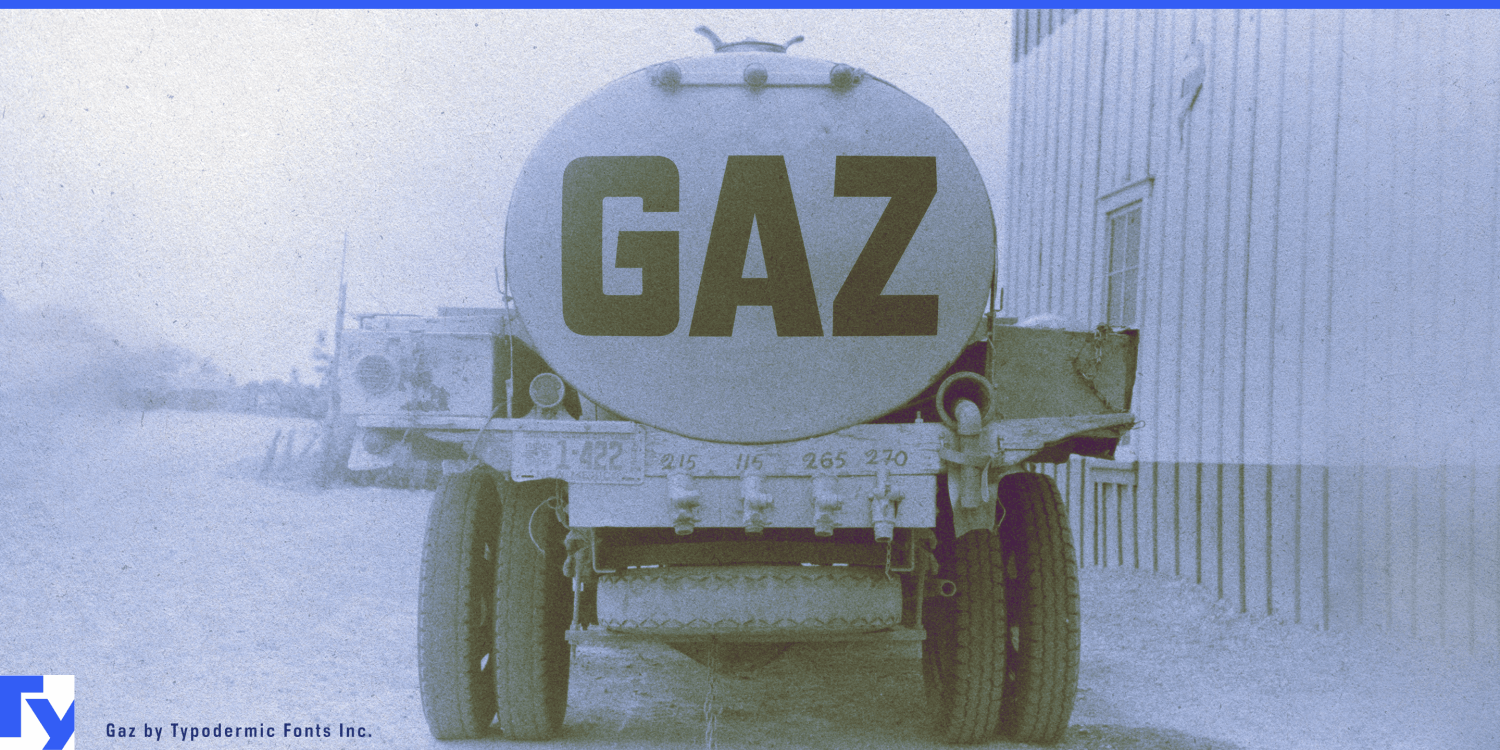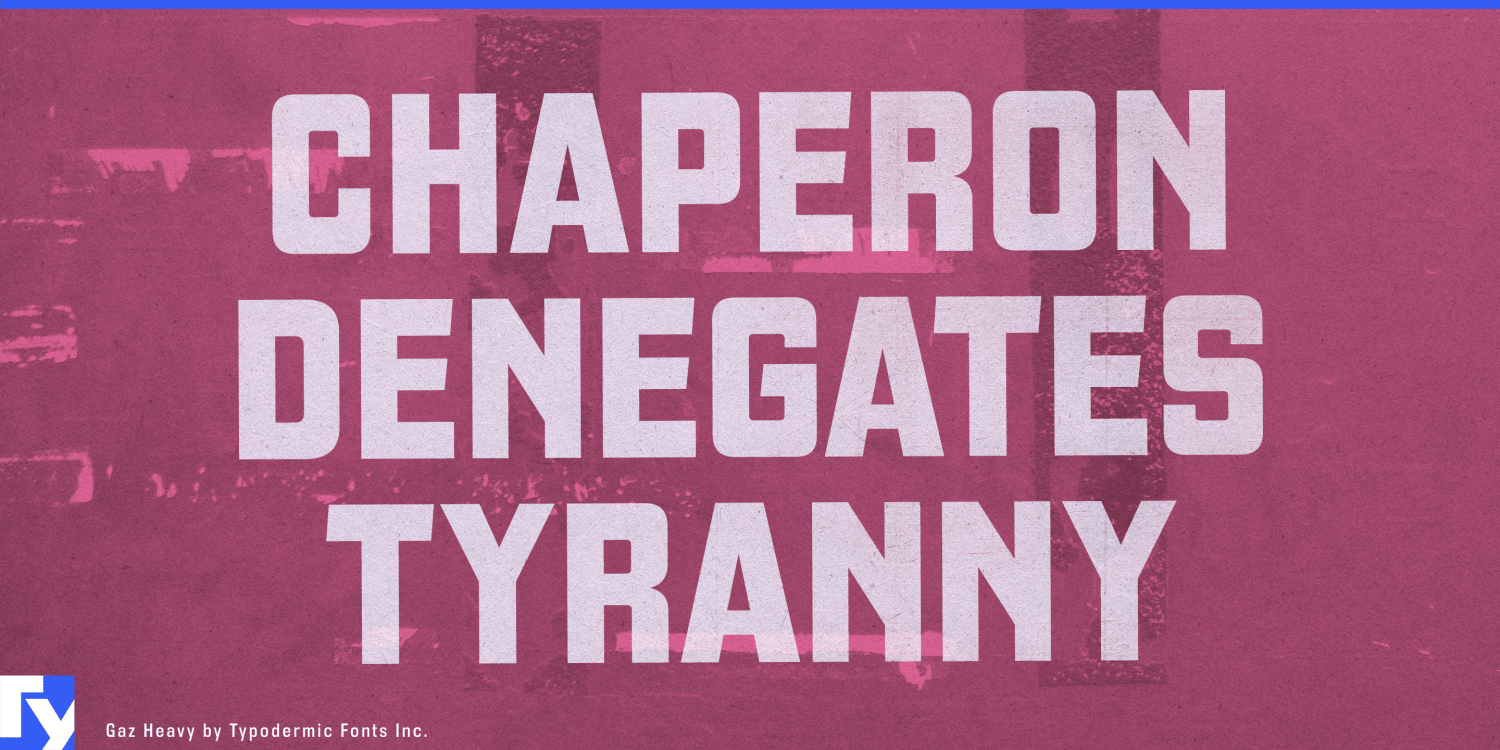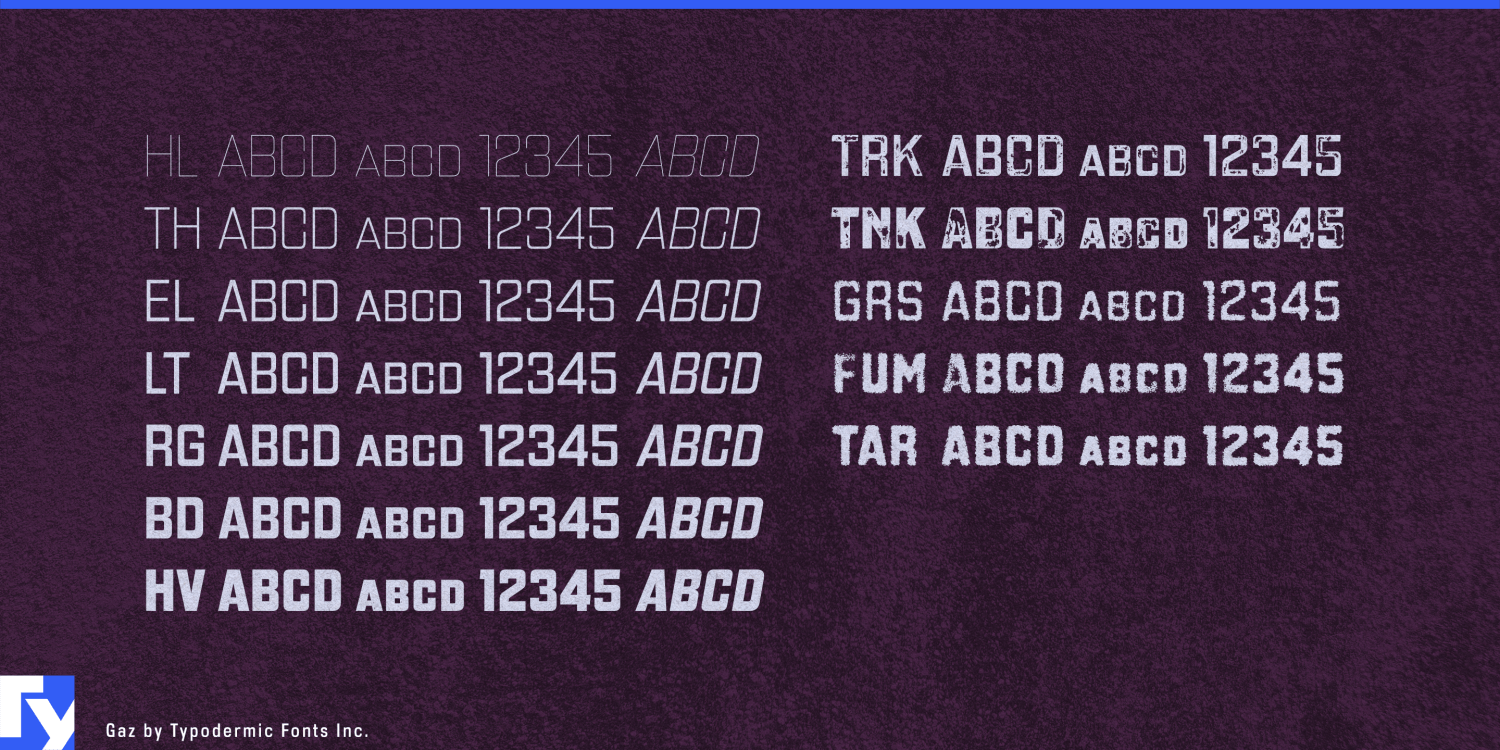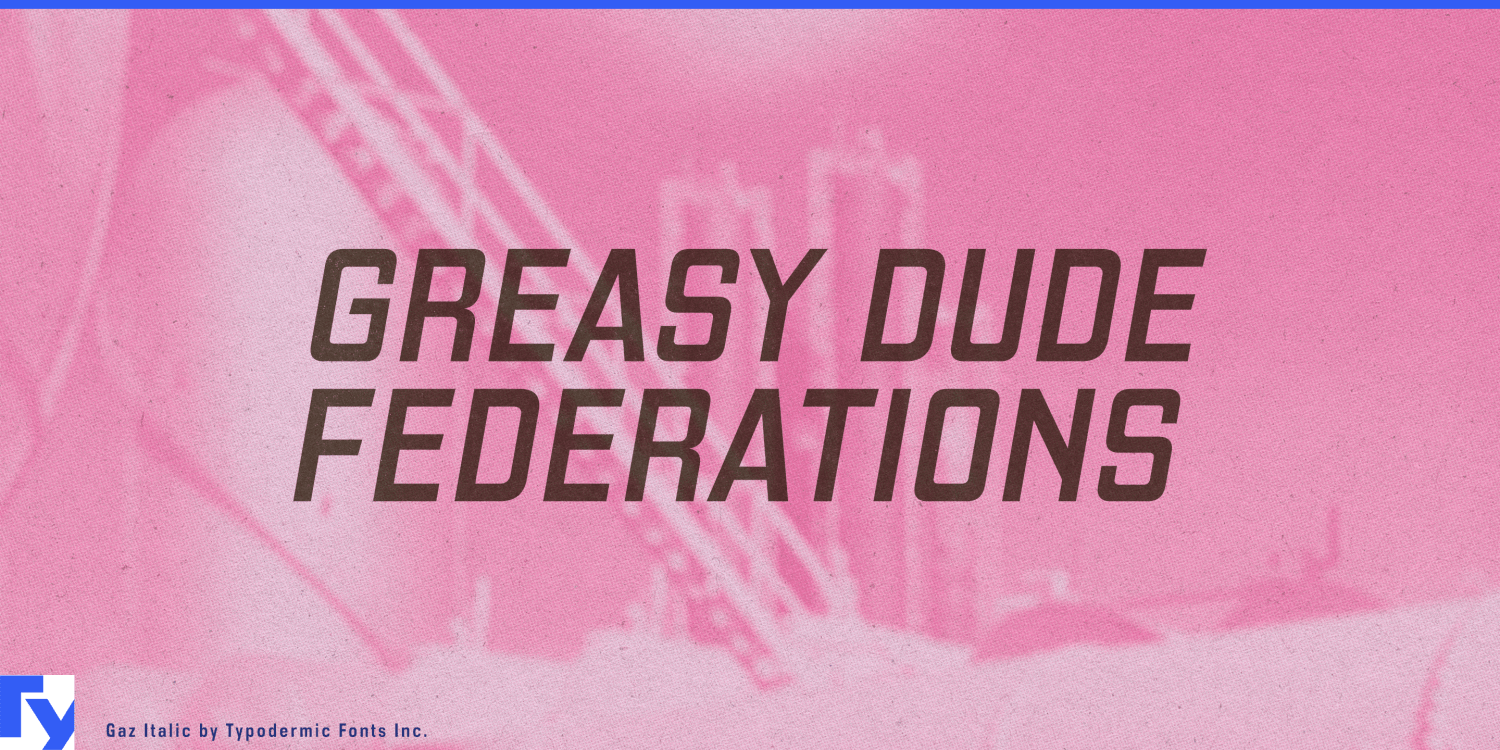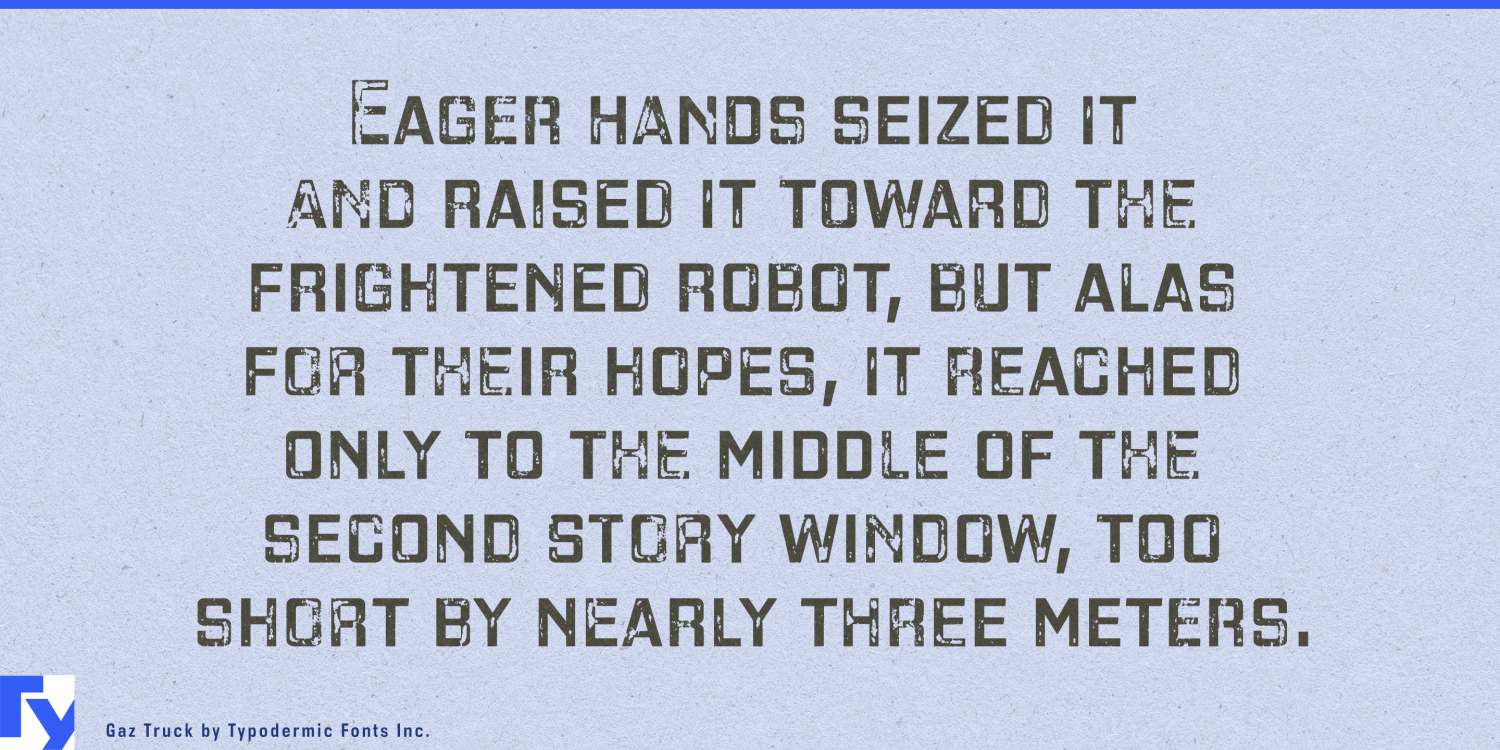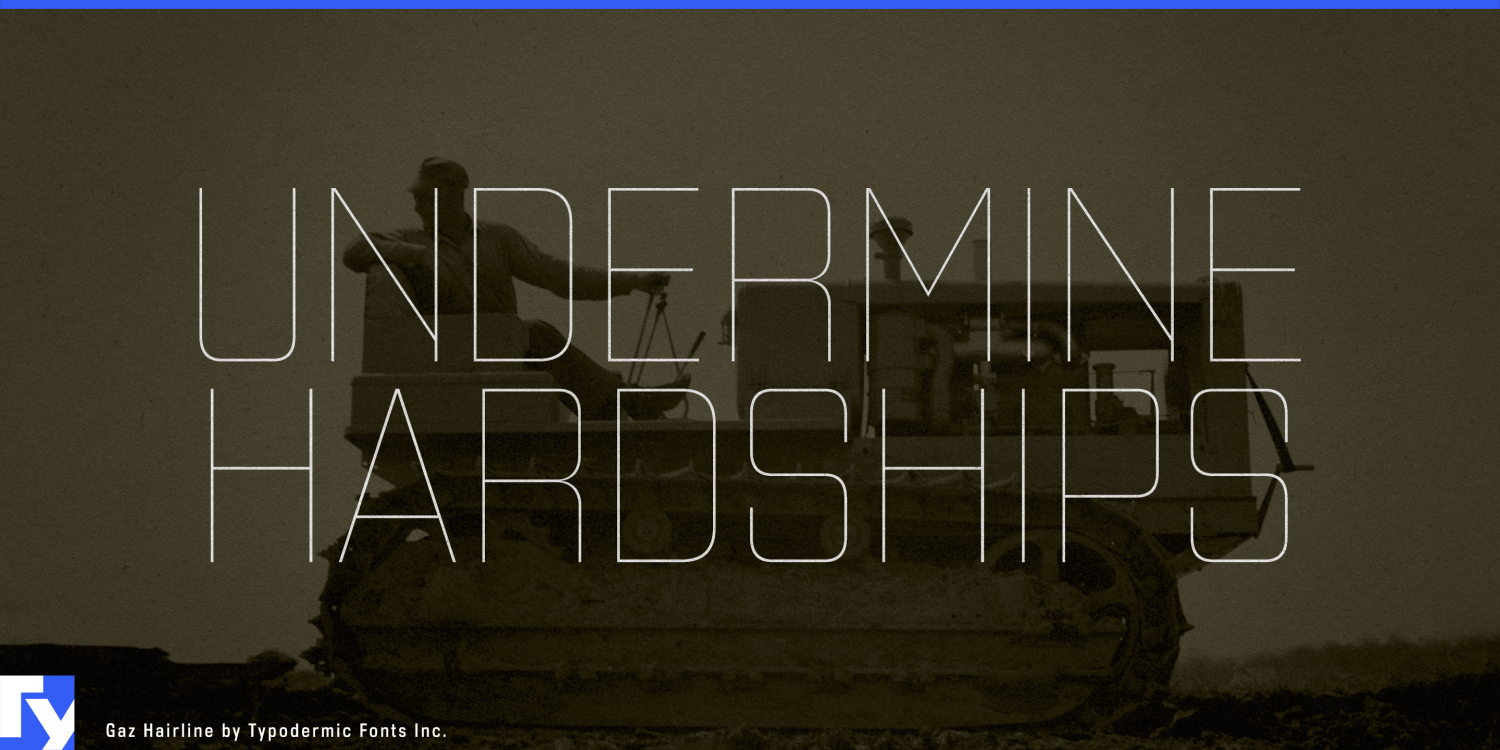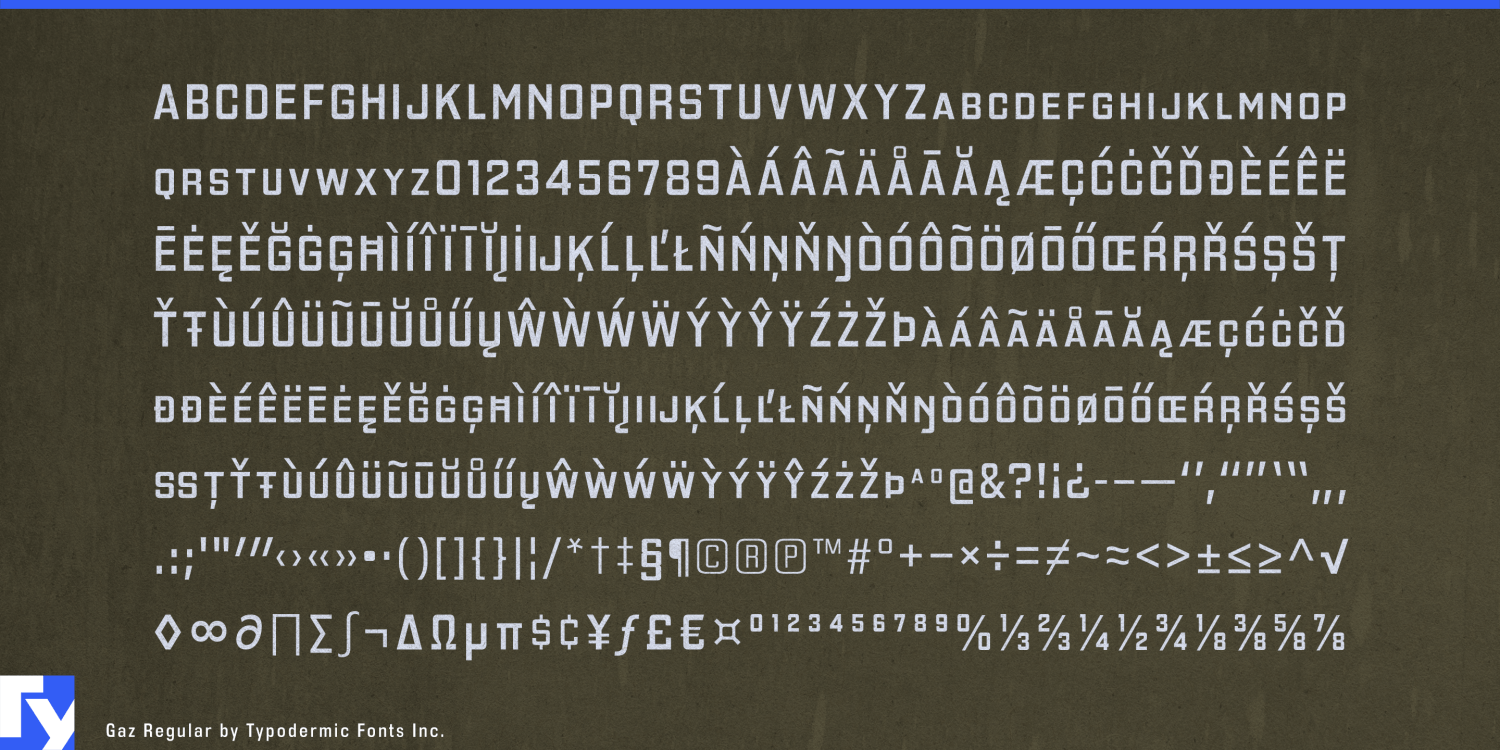
Gaz
Font Family by Typodermic
That makes Gaz particularly useful for certified repair and refurbishment programs. Appliance manufacturers, electronics companies, professional-tool brands, e-bike makers, outdoor-equipment companies, and durable-goods manufacturers can use it for repair centers, recertified products, parts departments, trade-in programs, inspection labels, service cards, workshop signs, shipping cartons, and campaign graphics. The clean styles can establish the permanent identity; the distressed companions can distinguish repaired, reconditioned, field-tested, archive, or service material.
EV and e-bike infrastructure extends that service vocabulary into the near future. Charging hubs, battery-diagnostic centers, e-bike service depots, commercial fleet workshops, battery-swap facilities, roadside-assistance networks, tire centers, and travel plazas built around fast charging all inherit some of the functional role once played by the filling station. Gaz can handle service-bay graphics, zone names, maintenance vehicles, uniforms, merchandise, roadside campaigns, and non-critical directional graphics while giving the environment more character than a generic technology identity.
The same idea extends naturally into circular-economy infrastructure. Repair pavilions, electronics refurbishment centers, building-material reuse depots, municipal repair facilities, university fabrication labs, tool-lending centers, appliance-recovery operations, and larger circular-economy campuses need visual identities that communicate useful work rather than abstract sustainability. Gaz makes a repair bench, parts locker, battery station, or reclaimed-material warehouse feel like part of a working civic system.
Maintainable green machinery provides another forward-looking application. Autonomous tractors, robotic weeders, orchard machines, greenhouse equipment, municipal cleaning robots, irrigation systems, inspection machines, field-service drones, and other equipment designed around replaceable modules and long service lives can use Gaz for model names, battery units, access panels, transport cases, maintenance graphics, dealer material, and trade-show displays.
Traditional workshop products remain part of the same world: rust treatments, greases, coolants, tire-repair systems, diagnostic equipment, battery-service tools, service lifts, parts washers, maintenance kits, workshop storage, shop chemicals, and fleet-service products all have a legitimate reason to use Gaz.
Gaz grew from mid-century gasoline-station and service lettering, but its future does not depend on nostalgia for gasoline, barbershops, or reclaimed wood. Its real subject is maintenance. It gives repair programs, roadside infrastructure, circular-economy facilities, service businesses, and maintainable machinery a compact industrial voice that makes the future look built to be fixed.